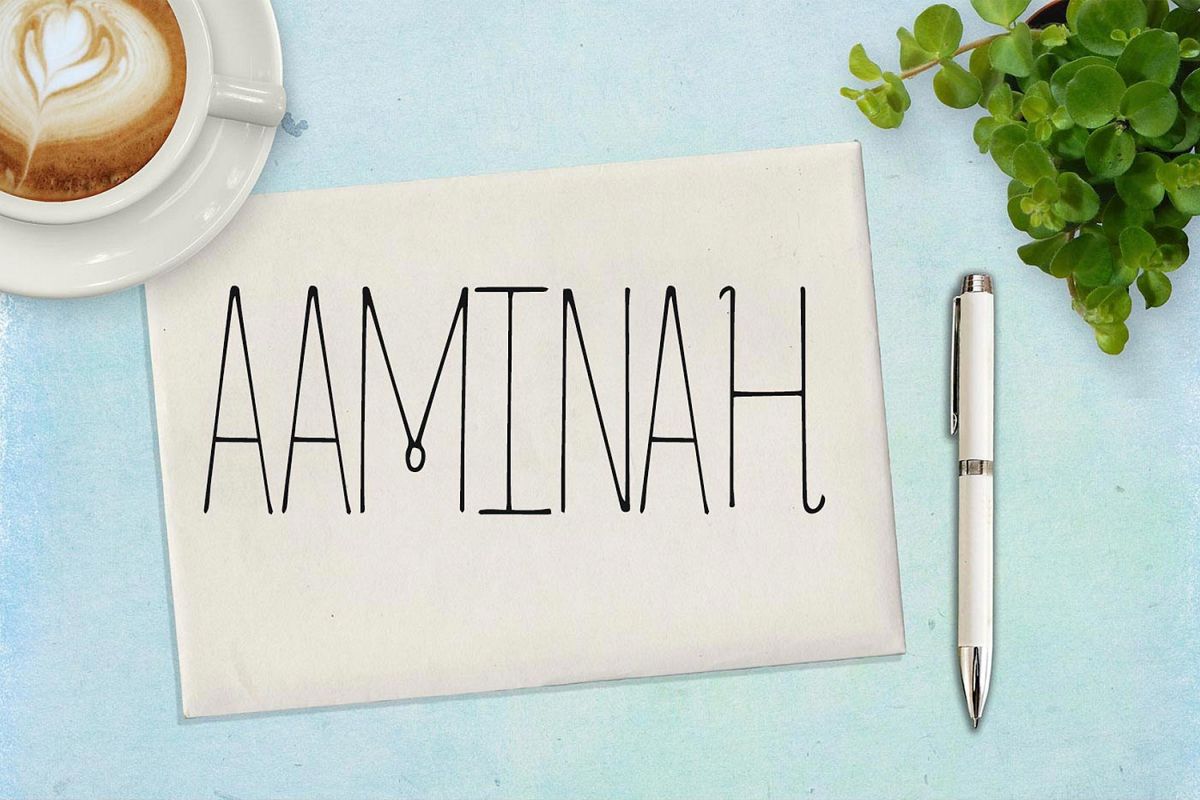
Aaminah Font
Aaminah
Introducing: Aaminah ! A lovely, shaped handwritten font with a personal charm. Aaminah is perfect for branding projects, valentines card design, home ware designs, product packaging – or simply as a stylish text overlay to any background image. A handwritten love font containing upper & lowercase characters, numerals and punctuation.ITEM DETAILS ::